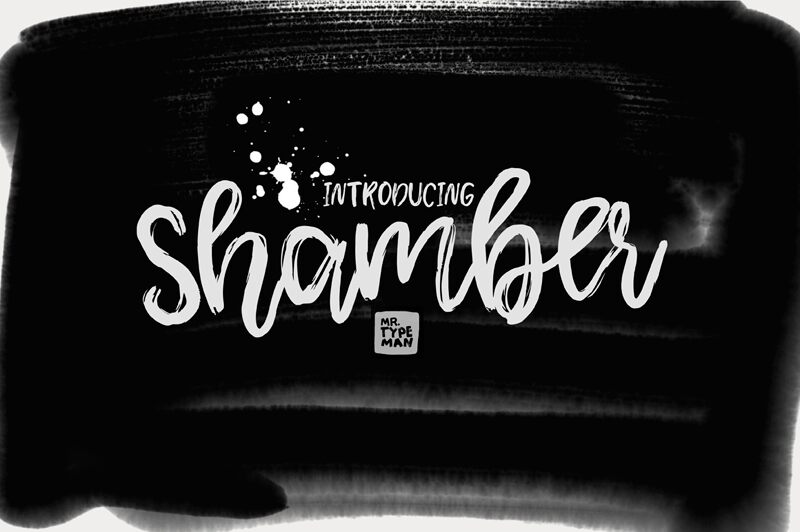
Shamber
Do you need to show your project in original and unusual way or introduce it in a grunge handwritten style? Shamber was created to facilitate this task. Full version of Shamber comes with uppercase, lowercase, standard punctuation and special letters for most of the European languages.